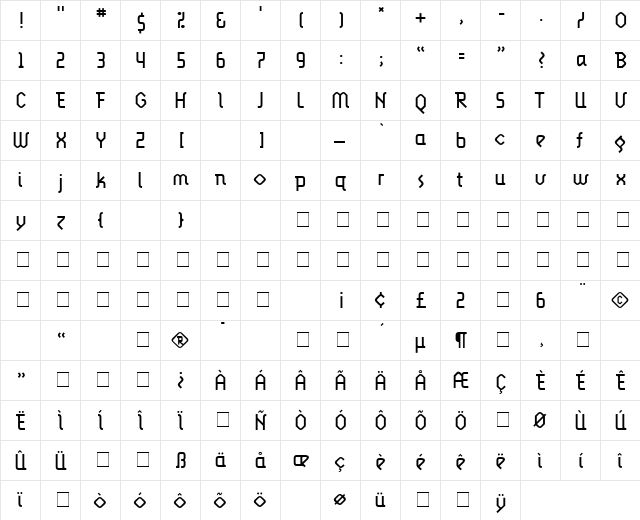
LunatixLight Medium
Design Context for LunatixLight Typeface
LunatixLight takes a measured approach to typography — its balanced proportions and neutral character make it a reliable workhorse for both digital and print work. The delicate stroke weight brings airiness and refinement to layouts.